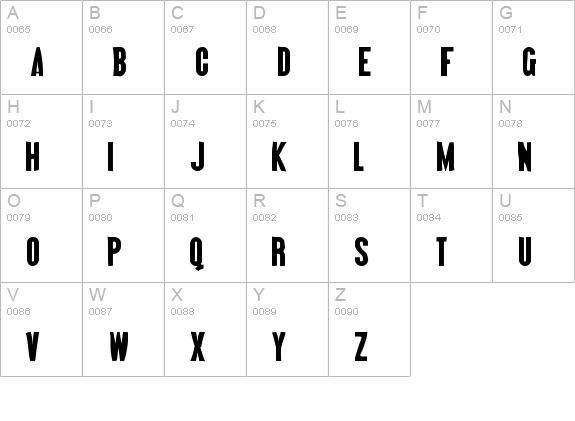
Almonte Gaunt Font Details
Almonte Gaunt font is a stunning display typeface that exudes elegance and sophistication. With its intricate details and vintage-inspired charm, this font is perfect for adding a touch of class to your design projects. The tall and slender letterforms of Almonte Gaunt make it ideal for headlines, logos, invitations, and other creative endeavors. The best part about Almonte Gaunt font is that it is completely free to download at FontsMarket.com. You can easily access this exquisite font and elevate your designs without having to spend a penny. Don't miss out on this opportunity to enhance your projects with the timeless beauty of Almonte Gaunt font. Download it today and let your creativity shine!